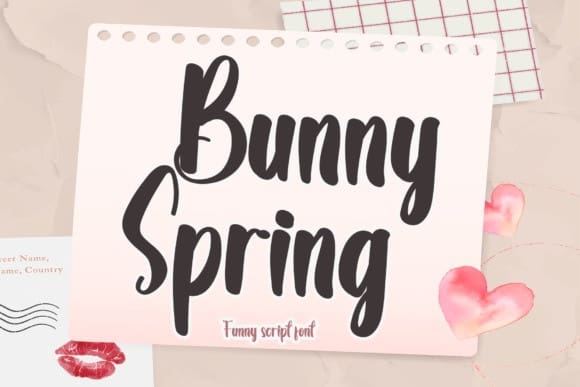
Bunny Spring Font
Bunny Spring Font is a sweet and cursive handwritten font. This gentle font will look gorgeous on a variety of design ideas. It will add a joyful and romantic touch to each of your projects!